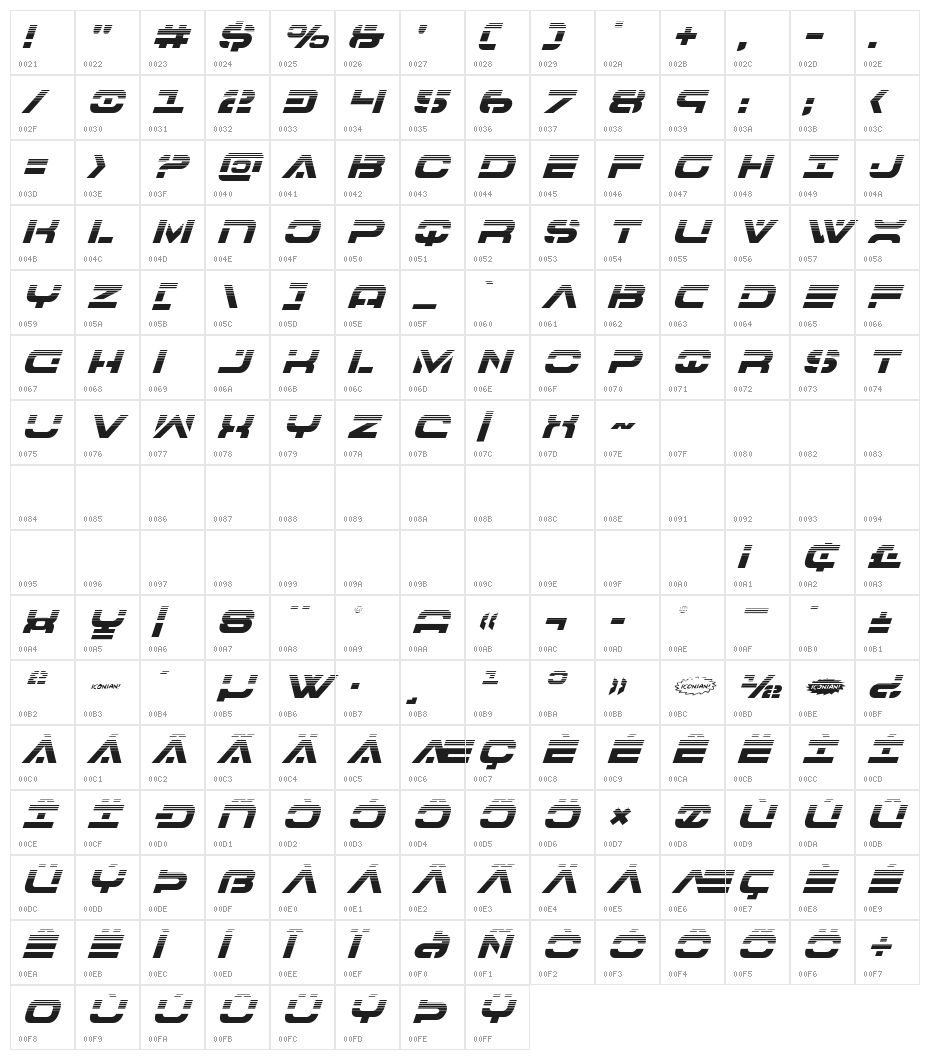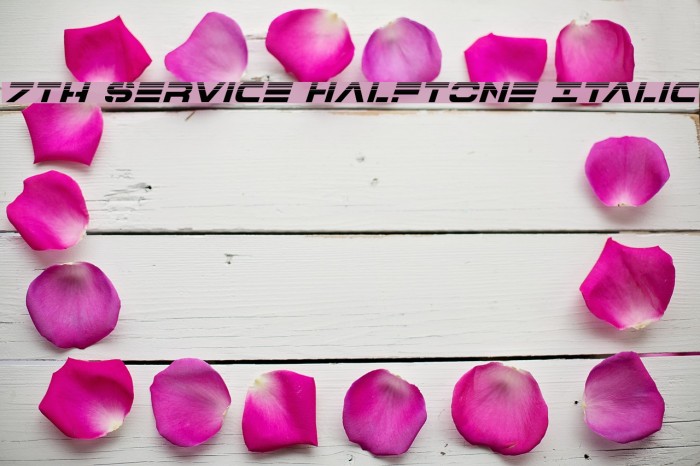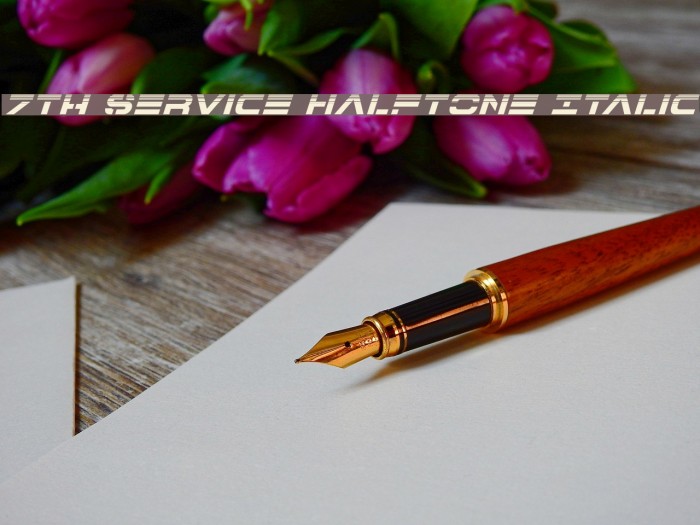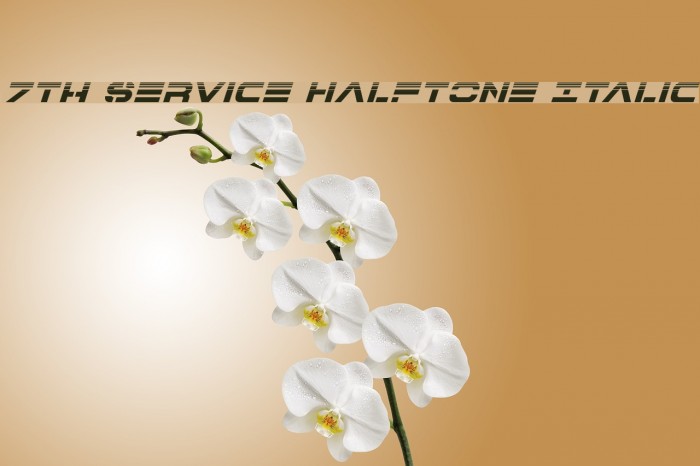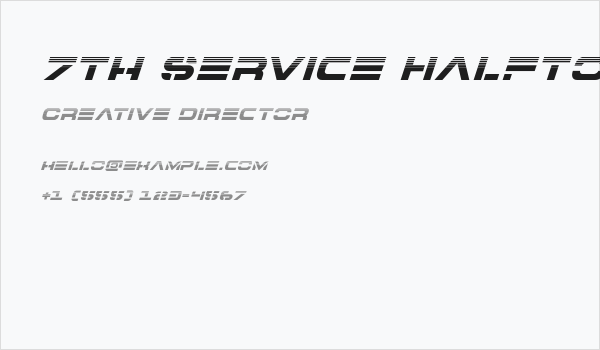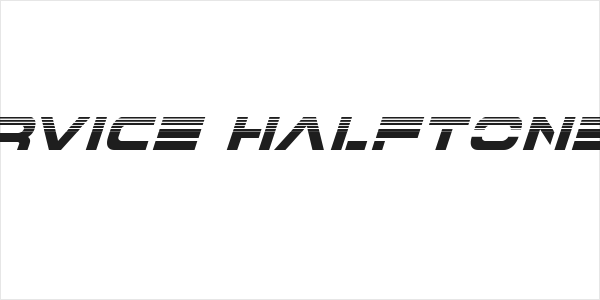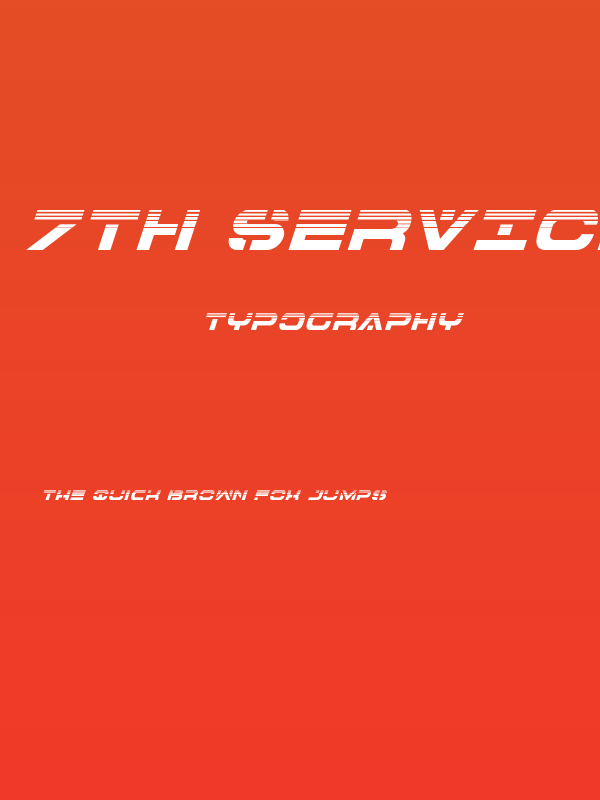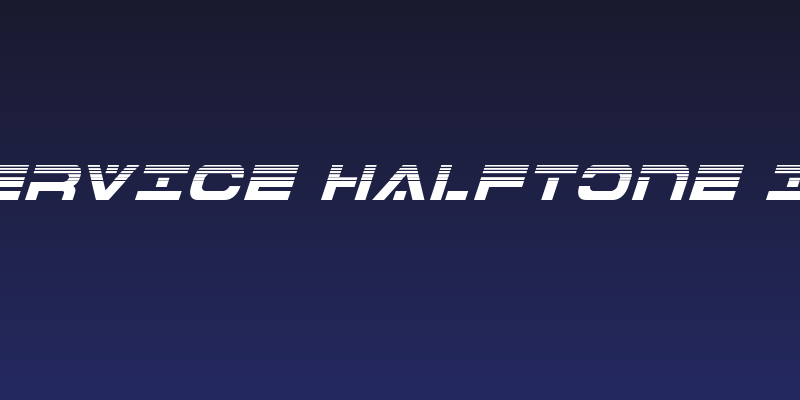
7th Service Halftone Italic Font
7th Service Halftone Italic Description
This font features a bold, italicized style with a unique halftone effect that gives it a dynamic and futuristic appearance. The characters are designed with a series of horizontal lines that create a sense of movement and energy. The uppercase and lowercase letters maintain a consistent design, with sharp angles and a slightly condensed form. The numbers and special characters are equally stylized, making them suitable for attention-grabbing designs. The overall aesthetic is modern and edgy, perfect for projects that require a bold statement.
| Proposed Projects | Ideal for sports branding, tech-related designs, video game titles, and modern advertising campaigns. |